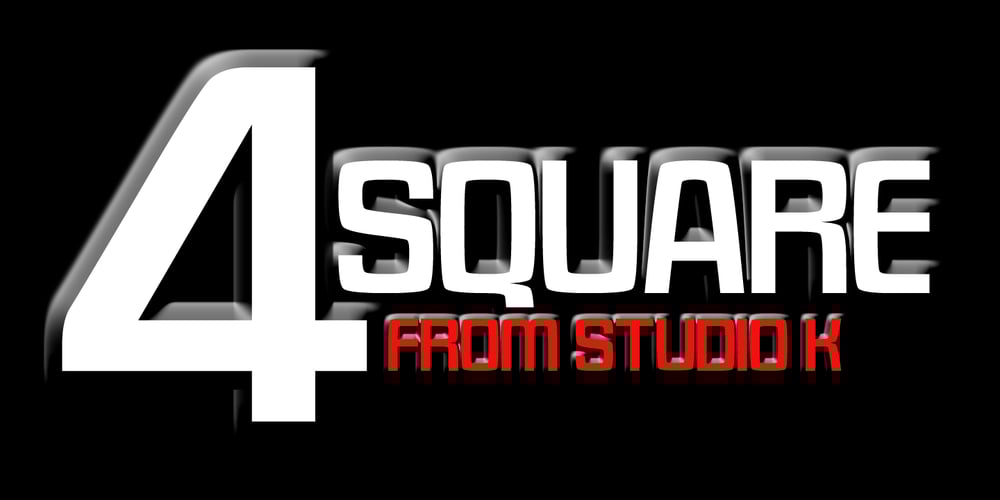
4square Font Family was designed by Keith Tricker and published by Studio K. 4square contains 1 styles and family package options. Strength, solidity and style neatly encapsulate 4square, a font that combines a sturdy industrial feel with smooth, streamlined contours. Its definitely got some Microgramma in its DNA, although the proportions are squarer and the letter forms more angular. Designing it has been an exercise in squaring the circle. The result is a pleasantly softened effect reminiscent of a worn pebble.